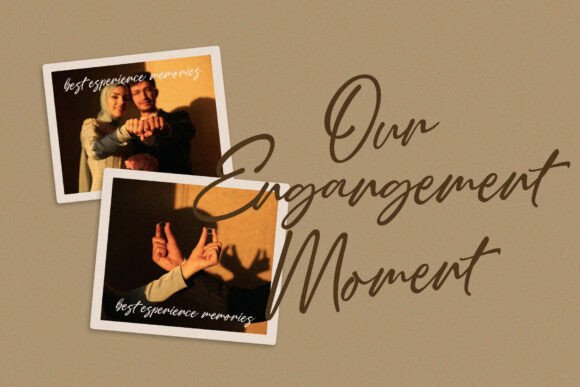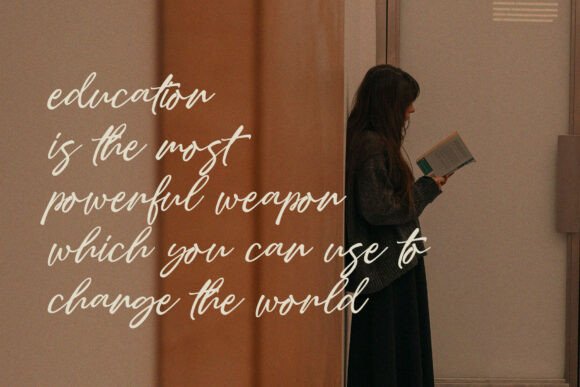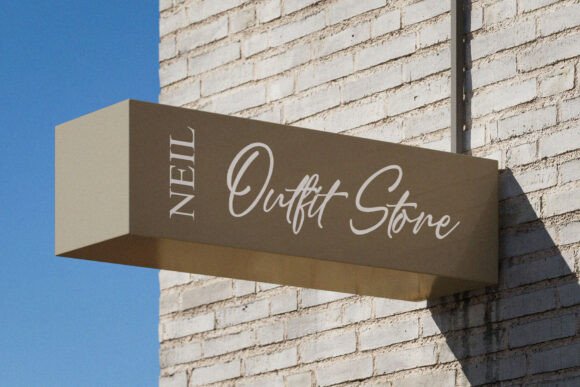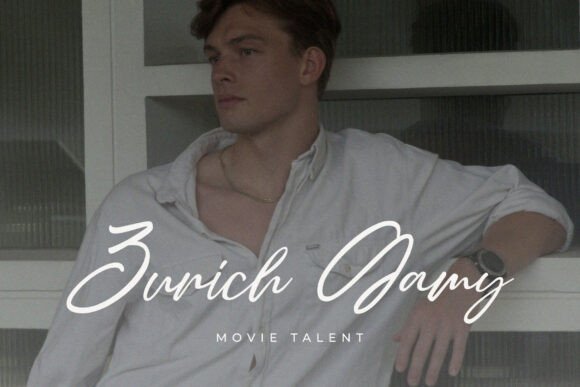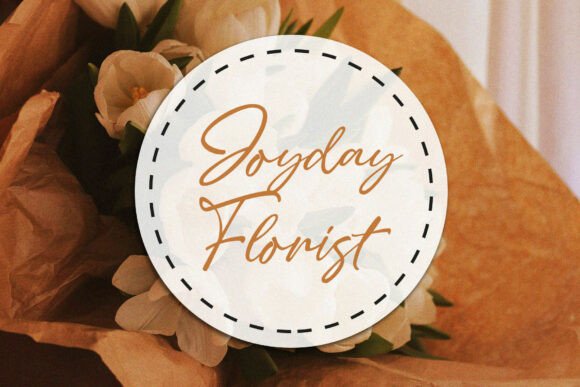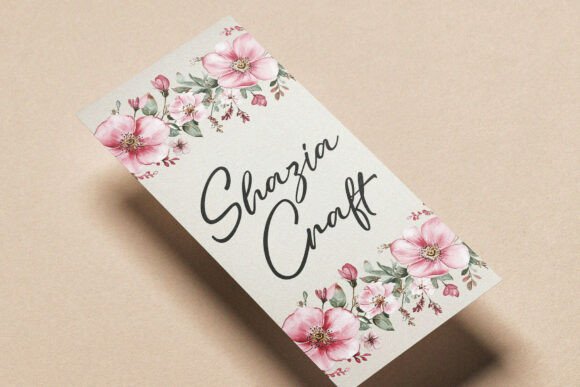
Beligera Font: Elevate Your Design with Effortless Elegance
In the world of typography, few fonts manage to capture the essence of modern sophistication and elegance as perfectly as Beligera. This stunning handwritten script font is designed to bring a touch of luxury and refinement to any design project, making it an ideal choice for creative professionals and crafters alike. With its smooth, flowing strokes and fashion-forward appeal, Beligera is poised to become the go-to font for high-end branding, runway-inspired editorials, signature logos, and chic social media graphics.
The Art of Elegance: What Makes Beligera Stand Out
Beligera’s unique charm lies in its ability to blend traditional script elements with a modern, effortless vibe. Each letter is carefully crafted to flow seamlessly into the next, creating a fluid and natural look that exudes confidence and poise. The font’s smooth strokes and subtle variations in line width give it a human touch, as if written by hand with a luxury pen. This level of detail and craftsmanship makes Beligera a standout in the world of digital typography.
Perfect for High-End Branding and Design Projects
Whether you’re working on a luxury brand identity, a high-fashion editorial, or a sophisticated marketing campaign, Beligera is the perfect choice to elevate your design. Its elegant and refined aesthetic makes it an excellent fit for:
- Logo Design: Create a lasting impression with a custom logo that embodies your brand’s values and personality.
- Editorials and Magazines: Add a touch of glamour to your fashion editorials, magazines, and publications.
- Social Media Graphics: Stand out on social media with chic and sophisticated graphics that showcase your brand’s style.
- Packaging and Product Design: Elevate your product packaging with a luxurious and eye-catching design.
Why Designers and Crafters Love Beligera
Beligera has quickly become a favorite among designers and crafters due to its versatility, elegance, and ease of use. Here are just a few reasons why:
- Easy to Read: Despite its elegant and cursive nature, Beligera remains highly legible, making it perfect for body text and headlines.
- Flexible: Use Beligera in a variety of design contexts, from digital projects to print materials.
- Customizable: Experiment with different colors, textures, and effects to make Beligera truly unique.
Technical Details: What You Need to Know
For those interested in the technical aspects of Beligera, here are a few key details:
- Font Type: Handwritten script font
- Characters: Includes uppercase and lowercase letters, numbers, and punctuation
In conclusion, Beligera is a game-changing font that offers designers and crafters a unique opportunity to elevate their designs with effortless elegance and modern charm. Its smooth, flowing strokes, fashion-forward appeal, and versatility make it the perfect choice for high-end branding, editorials, logos, and social media graphics. Whether you’re a seasoned designer or a crafty DIY enthusiast, Beligera is sure to become a staple in your design toolkit.